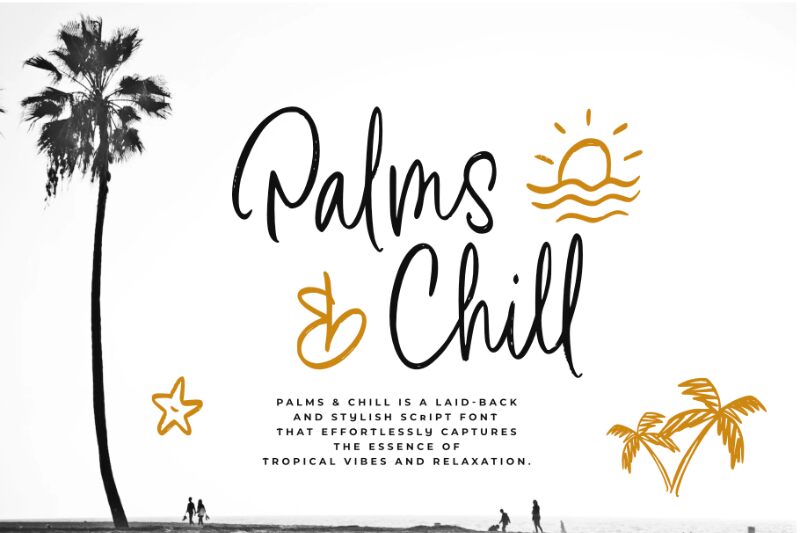
Palms & Chill font, crafted by Ardian Nuvianto of Damarletter, exudes a relaxed charm that captures the essence of laid-back summer vibes. Its fluid handwritten style combines graceful curves with playful swoops, creating an inviting and approachable aesthetic. The gentle, expansive strokes convey a sense of freedom and spontaneity, making it ideal for designs that seek to evoke warmth and familiarity.
Perfect for beach-themed branding, casual dining menus, or lifestyle blogs, Palms & Chill seamlessly integrates into any project that celebrates leisure and enjoyment. This unique font embodies a carefree spirit while maintaining elegance, distinguishing itself in both digital and print applications. Let its delightful character bring a touch of sunshine to your next design endeavor!